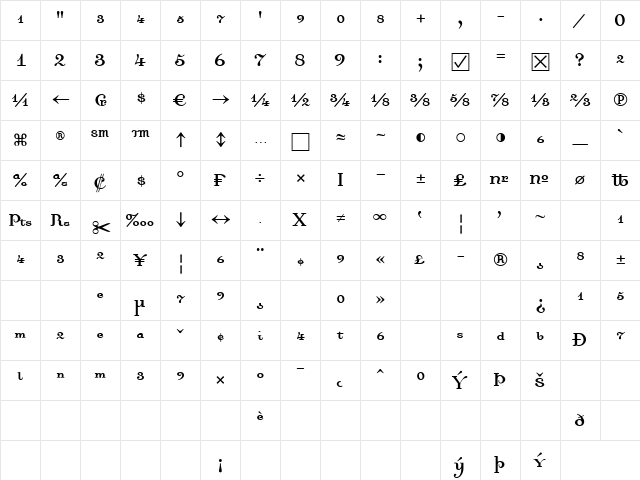
Dalliance Medium Free Font
Dalliance Medium
Dalliance Family
Dalliance Medium
Design Context for Dalliance
Dalliance is a composed and adaptable typeface that performs quietly and consistently across a wide range of design contexts.